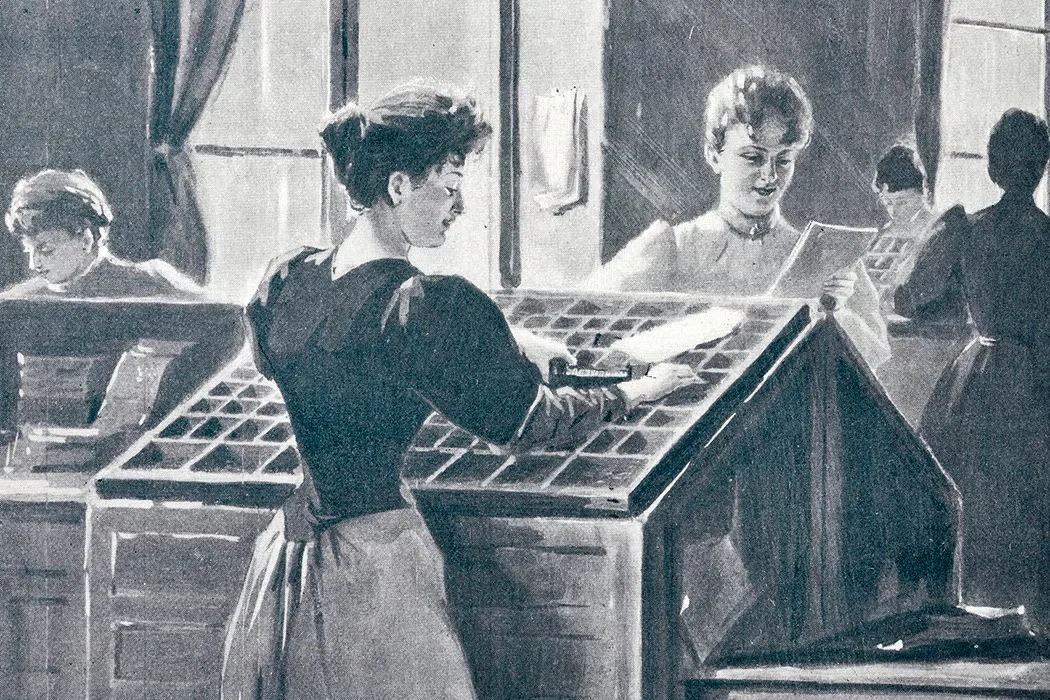
Typesetting Races before the Age of Linotype
Before Linotype revolutionised typesetting in the 1880s, compositors set texts by hand — and they set them fast. Alex Wright rediscovers the thrilling world of typesetting races, which drew crowds in the thousands, offered huge cash prizes, and helped women “Swifts” fight for workplace equity.